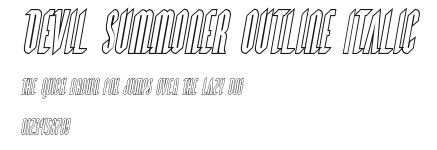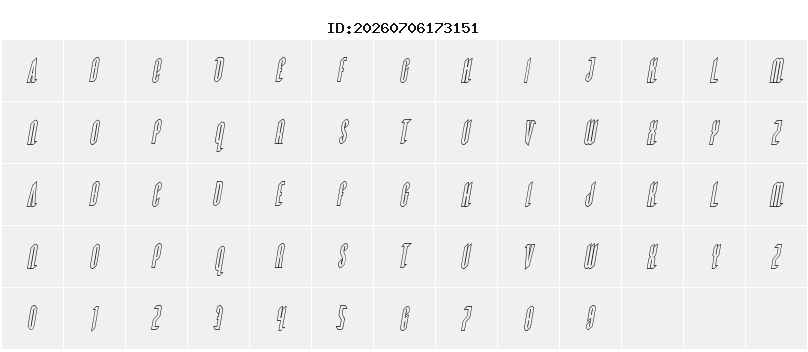
• Font Name: Devil Summoner Outline Italic
• Full Font Name: Devil Summoner Outline Italic
About Devil Summoner Outline Italic.ttf
Devil Summoner Outline Italic.ttf is a modern, elegant sans-serif font designed for ultimate readability and visual harmony. Perfect for branding, headlines, web design, and print materials.